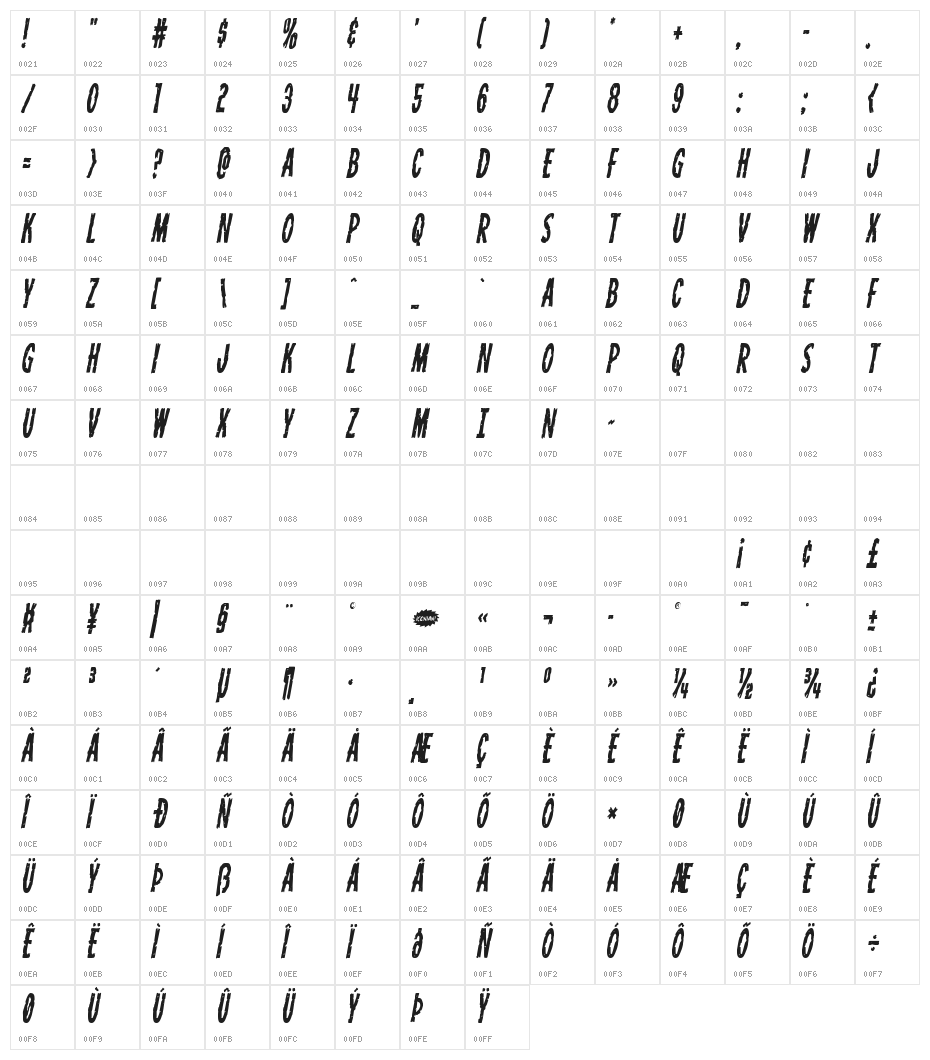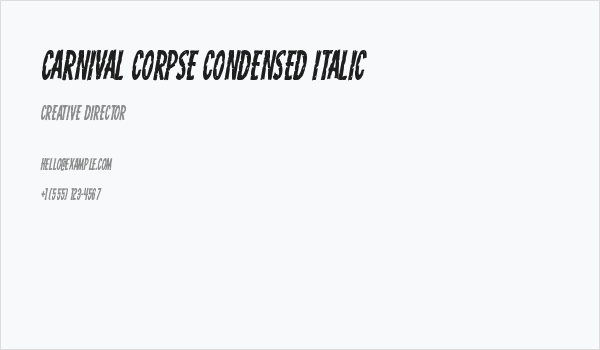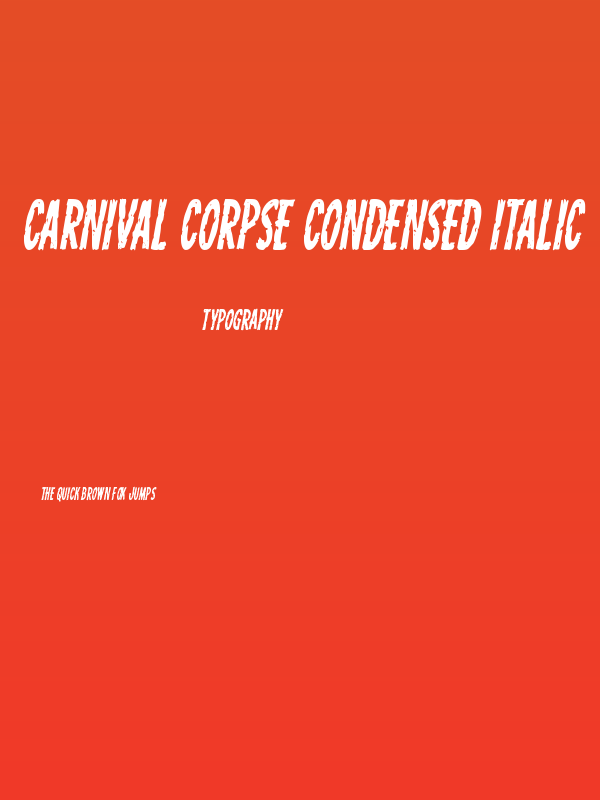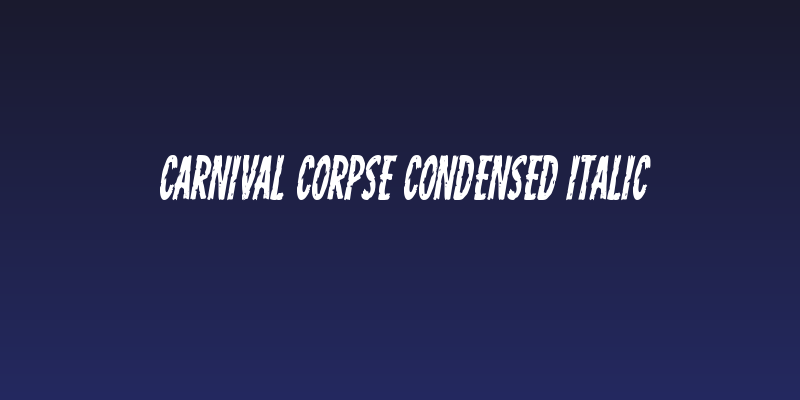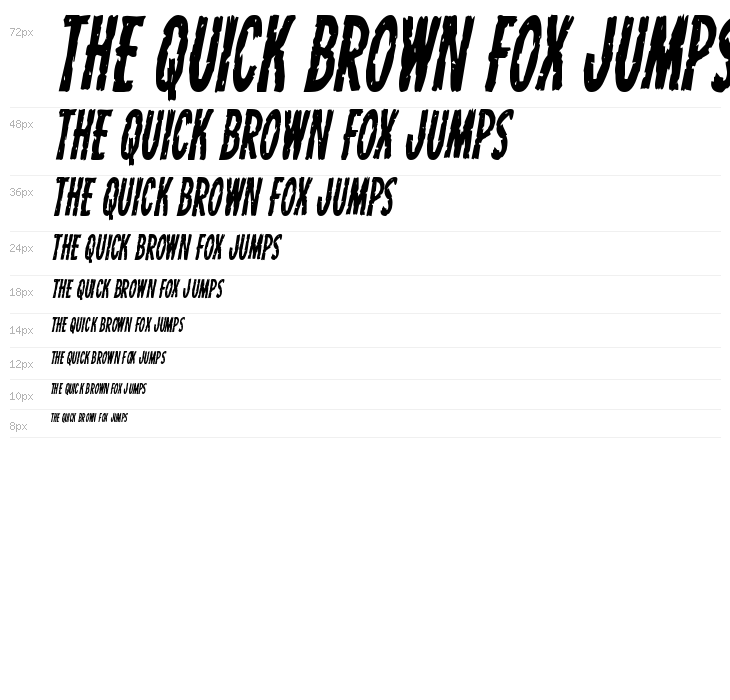
Carnival Corpse Condensed Italic Font
Carnival Corpse Condensed Italic Description
This font features a bold and dynamic style with a distressed, grunge-like texture that gives it a rugged and edgy appearance. The letters are condensed and italicized, adding a sense of urgency and movement. The uppercase and lowercase letters maintain a consistent design, with sharp angles and irregular edges that enhance its raw aesthetic. Numbers and special characters follow the same stylistic approach, ensuring a cohesive look across all glyphs. This font's unique characteristics make it stand out, perfect for projects that require a bold statement.
| Proposed Projects | Ideal for music album covers, horror movie posters, edgy branding, and event flyers. |